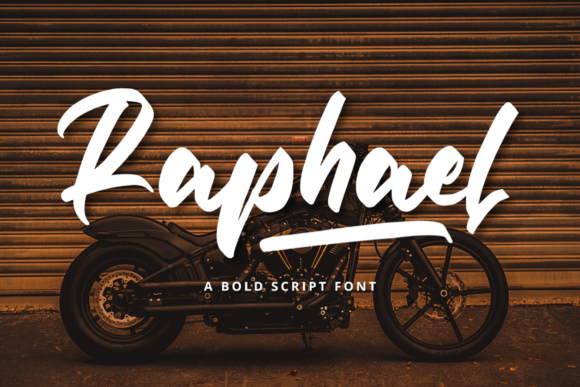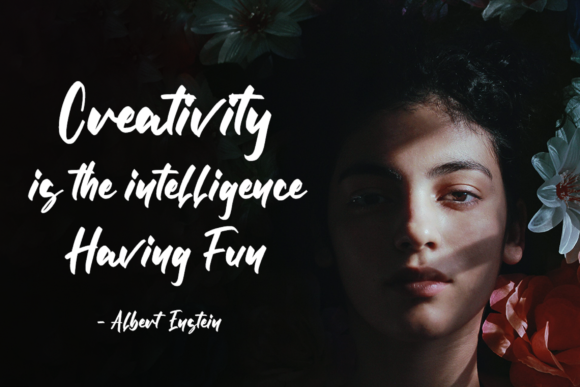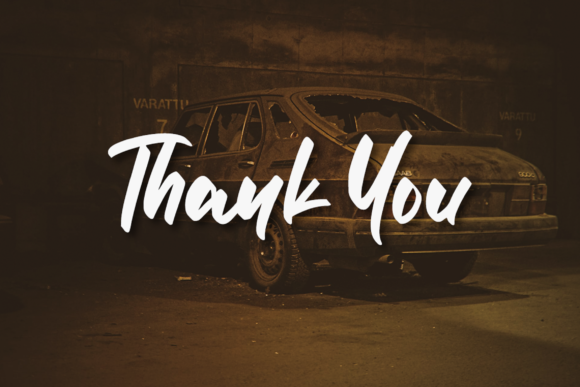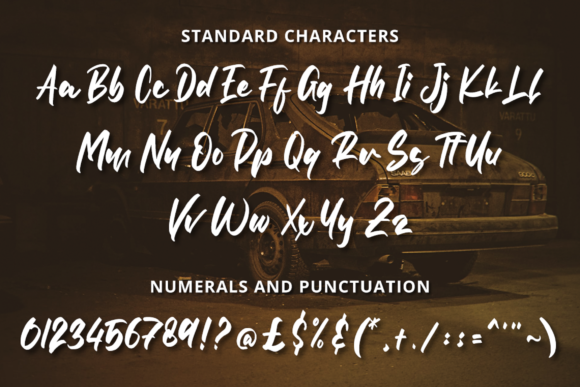
About Raphael Font
Raphael is a bold and playful script font that adds a touch of fun and liveliness to your designs. With its chunky letterforms and expressive strokes, this font brings a sense of energy and excitement to any project.
The bold nature of Raphael makes it stand out and grab attention. Whether you’re designing posters, logos, social media graphics, or any other creative work, this font will make your designs pop and catch the viewer’s eye. Its thick and confident strokes create a strong visual impact, making it suitable for designs that aim to make a statement or convey a sense of boldness and confidence.
Raphael’s chunky lettered style adds a touch of personality and uniqueness to your designs. The thick strokes and playful curves give the font a friendly and approachable feel, making it suitable for projects that require a more casual and informal look. It is well-suited for designs related to children, entertainment, or any context where a touch of whimsy is desired.
In addition to its bold and fun appearance, Raphael is also highly versatile. It can be used in a variety of design contexts, from branding and packaging to headlines and titles. Its legibility and distinctiveness make it suitable for both digital and print applications, ensuring that your message comes across clearly and effectively.
One of the benefits of Raphael is its ability to evoke a sense of joy and positivity. Its playful and lively nature can help create a cheerful and upbeat atmosphere in your designs, resonating with your audience and leaving a lasting impression.
In summary, Raphael is a bold and fun script font that brings a sense of liveliness and excitement to your designs. Its chunky lettered style and playful curves make it stand out and catch attention, while its versatility allows it to be used in a wide range of design contexts. So, if you’re looking to add a touch of fun and energy to your designs, Raphael is a fantastic choice.